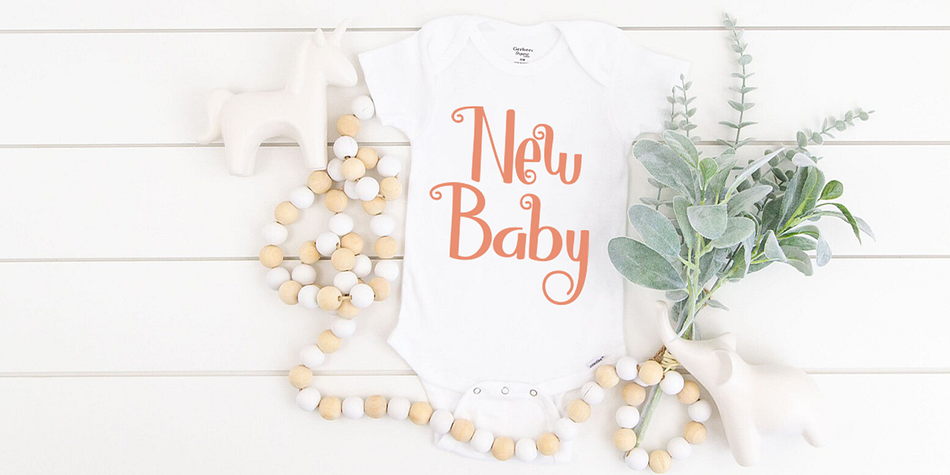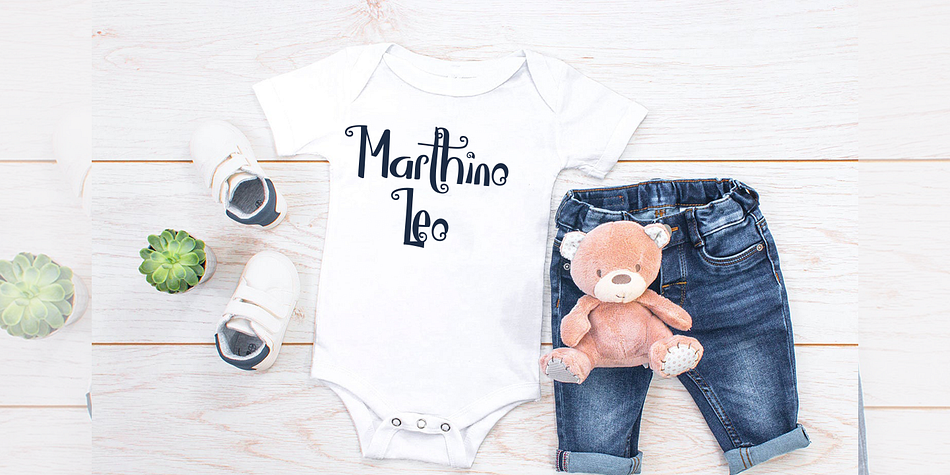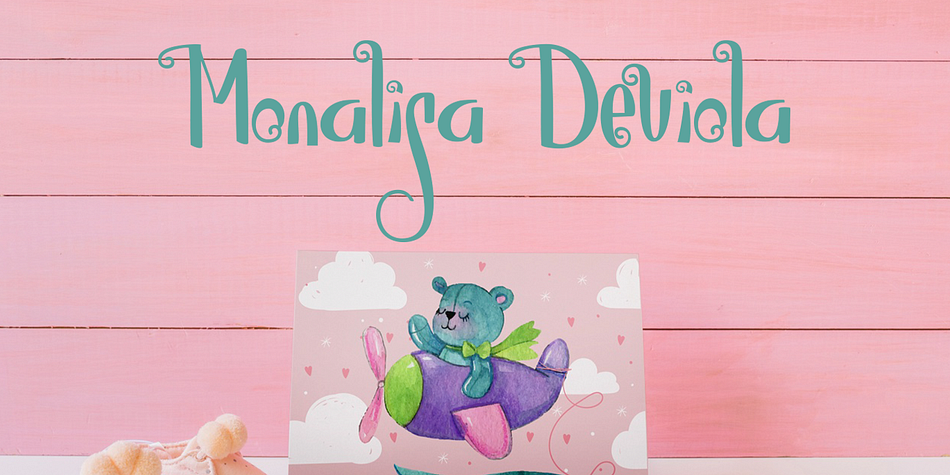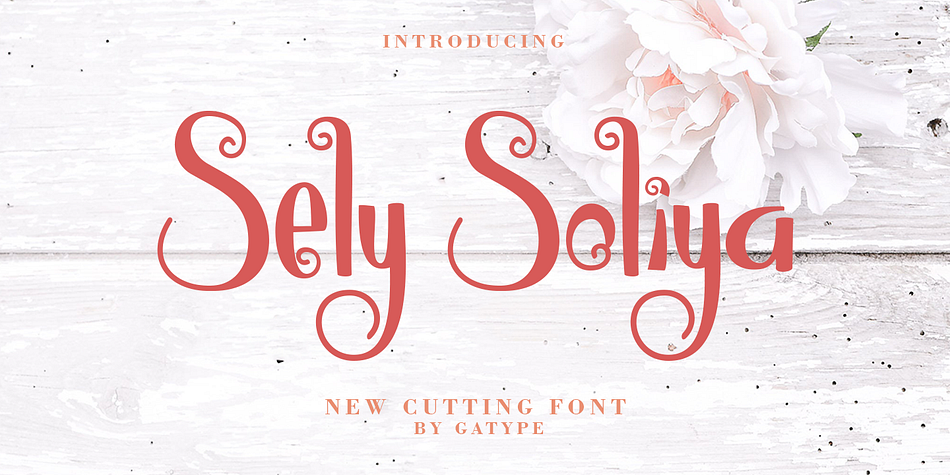
Sely Soliya
Sely Soliya is a script font family published by Gatype.
Sely Soliya, This Font is a modern look perfect for branding, invitations, stationery, wedding designs, social media posts, advertisements, product packaging, product designs, labels, hotography, watermarks, special events and more. Sely Soliya is encoded with PUA Unicode, which allows full access to all additional characters without having to design any special software. Mac users can use Font Book, and Windows users can use Character Map to view and copy any additional characters to paste into your favorite text editor/app. You need a program that supports Adobe Illustrator CS, Adobe Indesign & CorelDraw X6-X7, Microsoft Word 2010 or later.